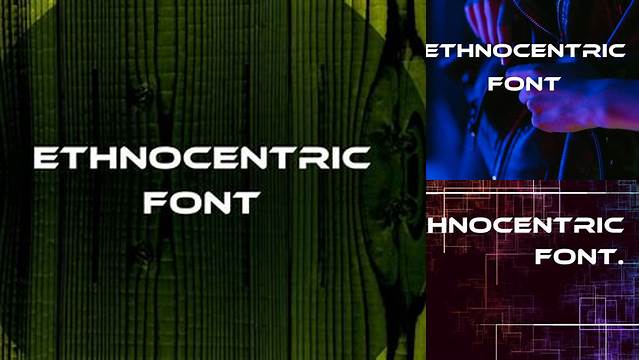
Hey guys! Are you on the hunt for a font that screams unique and futuristic? Look no further! The ethnocentric font is here to save the day. This typeface is a total game-changer if you're aiming for a design that stands out from the crowd. We're going to dive deep into what makes this font so special, how you can snag it for free in TTF format, and how to use it to its full potential. So, buckle up and let’s get started!
What Makes Ethnocentric Font So Special?
Let's talk about what exactly makes the ethnocentric font such a design darling. This font isn't your run-of-the-mill typeface; it's got character, it's got flair, and it's got that it factor that makes designs pop. The ethnocentric font is all about capturing a futuristic, almost otherworldly vibe. Think sleek lines, sharp angles, and a sense of forward motion. It’s like something straight out of a sci-fi movie, making it an excellent choice for projects that need to convey innovation and cutting-edge technology. What truly sets the ethnocentric font apart is its unique letterforms. Each character is carefully crafted to create a cohesive yet distinctive look. It’s not just about readability (though it certainly excels there too); it's about making a statement. The font has this incredible ability to draw the eye and hold the viewer's attention. It’s bold, it’s modern, and it’s unapologetically stylish. The ethnocentric font is incredibly versatile. Whether you're designing a website, creating a logo, or putting together marketing materials, this font can adapt to a wide range of design needs. Its futuristic aesthetic makes it particularly well-suited for tech companies, gaming brands, and anything related to innovation. However, its versatility doesn't stop there. You can use the ethnocentric font in creative ways to add a touch of modernity to more traditional designs, too. Imagine using it for a book cover, a poster, or even a social media campaign. The possibilities are endless! But hey, it's not just about looks, right? The ethnocentric font also scores high on readability. Despite its unique design, the letters are clear and legible, ensuring that your message gets across without any confusion. This balance between style and function is what makes it a top choice for designers who want their work to look great and communicate effectively. The sharp lines and distinctive shapes of the ethnocentric font create a sense of energy and dynamism. It’s a font that feels like it’s moving forward, making it perfect for projects that need to convey a sense of progress and innovation. Think about startups, tech conferences, or any brand that wants to be seen as forward-thinking. This font is your secret weapon! And let's not forget the cool factor. There's just something undeniably cool about the ethnocentric font. It’s the kind of font that makes people stop and take notice. It's the font that elevates your design from ordinary to extraordinary. If you want to add a touch of edginess and sophistication to your projects, this is the font you need in your toolkit. So, if you’re looking for a font that’s both stylish and functional, look no further than the ethnocentric font. It’s a typeface that’s sure to make a lasting impression. Trust me, once you start using it, you’ll wonder how you ever designed without it!
Unleash the Potential: How to Use Ethnocentric Font
Okay, you've got the ethnocentric font downloaded and installed – awesome! But now comes the really fun part: figuring out how to use it to its fullest potential. This font is versatile, but it's all about knowing how to wield its unique power. So, let's dive into some killer ways to make your designs shine with the ethnocentric font. First off, think about the mood you're trying to create. The ethnocentric font has a distinctly futuristic and modern vibe, so it's a natural fit for projects that need to convey innovation, technology, or a forward-thinking attitude. Think tech startups, sci-fi books, gaming websites, or anything in the digital realm. This font is like the secret sauce for adding that extra layer of coolness and sophistication. When it comes to logos, the ethnocentric font can be a total game-changer. Its sharp lines and unique letterforms make it incredibly eye-catching and memorable. Imagine a tech company with a sleek, minimalist logo using this font – instant impact! It's also great for logos in the entertainment industry, especially anything related to gaming or futuristic themes. Just be mindful of readability; while the ethnocentric font is generally legible, it's important to make sure the logo is still clear and recognizable, especially at smaller sizes. For headings and titles, this font is a superstar. It commands attention and makes a bold statement. Use it for website headers, posters, flyers, or any place where you want your text to really stand out. The ethnocentric font has a way of grabbing the viewer's eye and drawing them in, making it perfect for creating impactful headlines. When you're using it for headings, consider playing with the letter spacing and size to get the perfect balance of visual appeal and readability. Now, let's talk about body text. While the ethnocentric font is fantastic for headlines, it might not be the best choice for large blocks of text. Its unique design, while striking, can become a bit overwhelming for the reader if used extensively. Instead, try pairing it with a more traditional and highly legible font for your body text, like a clean sans-serif or a classic serif. This creates a nice contrast and ensures that your content is easy to read. Pairing fonts is like creating a perfect harmony – you want fonts that complement each other without competing for attention. When it comes to color, the ethnocentric font looks amazing in a variety of palettes. For a futuristic feel, try pairing it with cool colors like blues, purples, and silvers. For a more edgy and modern vibe, black and white is always a classic choice. And if you want to add a pop of energy, try using it with vibrant accent colors like neon greens or electric blues. Experiment with different color combinations to see what works best for your project. The ethnocentric font also plays well with visual elements. Think about incorporating geometric shapes, abstract patterns, or futuristic imagery to complement its modern aesthetic. For example, you could use it in a design that features sleek lines, metallic textures, or digital-inspired graphics. These elements will enhance the overall futuristic feel and create a cohesive and visually stunning design. Don't be afraid to experiment with different weights and styles of the ethnocentric font, if available. Some fonts come in multiple weights (like bold, light, or regular) and styles (like italic or condensed). Playing with these variations can add depth and dimension to your designs. For example, you might use the bold version for headlines and the regular version for subheadings. Finally, remember the golden rule of design: less is often more. The ethnocentric font is a powerful typeface, so you don't need to overdo it. Use it strategically to highlight key elements and create a strong visual impact. Too much of a good thing can actually detract from your design, so be mindful of how you're using it. By following these tips, you'll be able to unleash the full potential of the ethnocentric font and create designs that are both visually stunning and highly effective. So, go ahead and get creative – the possibilities are endless!